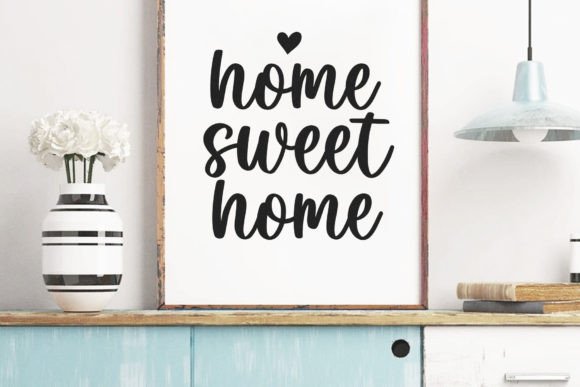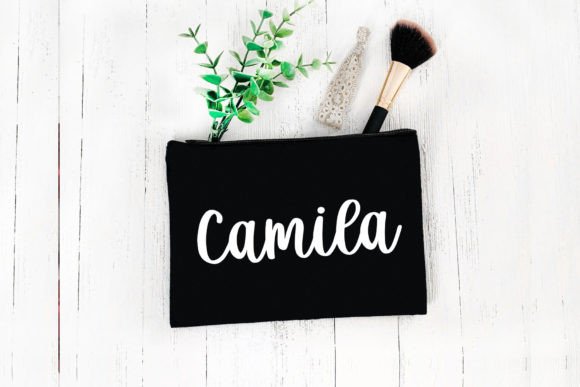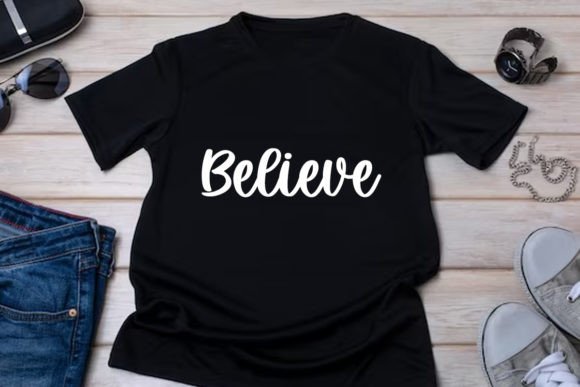
Introduction to Nolan Claire Font
Nolan Claire is a fresh, modern, stylish, and flowing handwritten font.
It has beautiful and well-balanced characters and as a result, it matches a wide pool of designs It is the best choice for creating eye-catching logos, branding, and quotes.
Why Choose Nolan Claire Font?